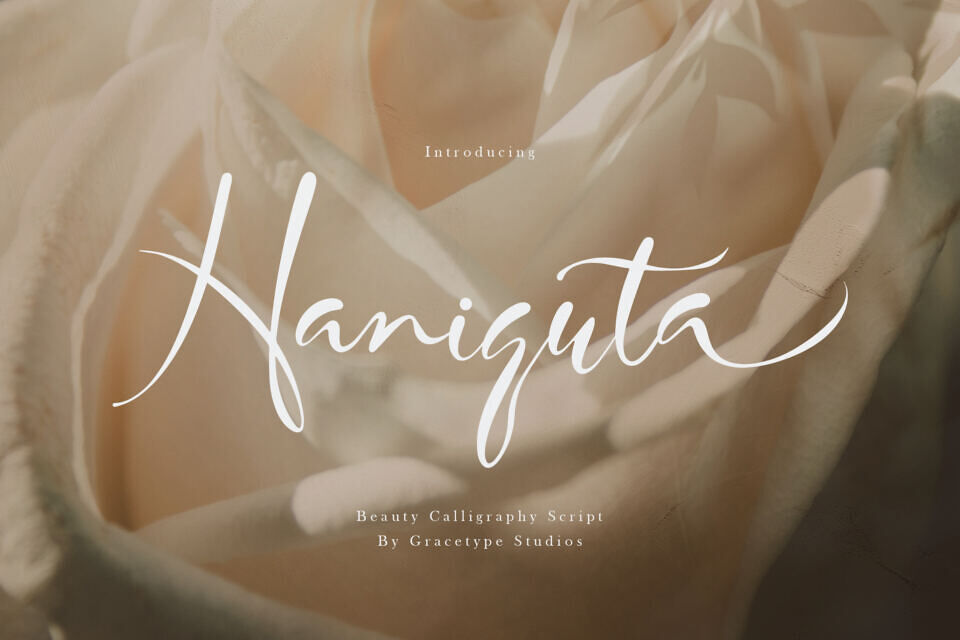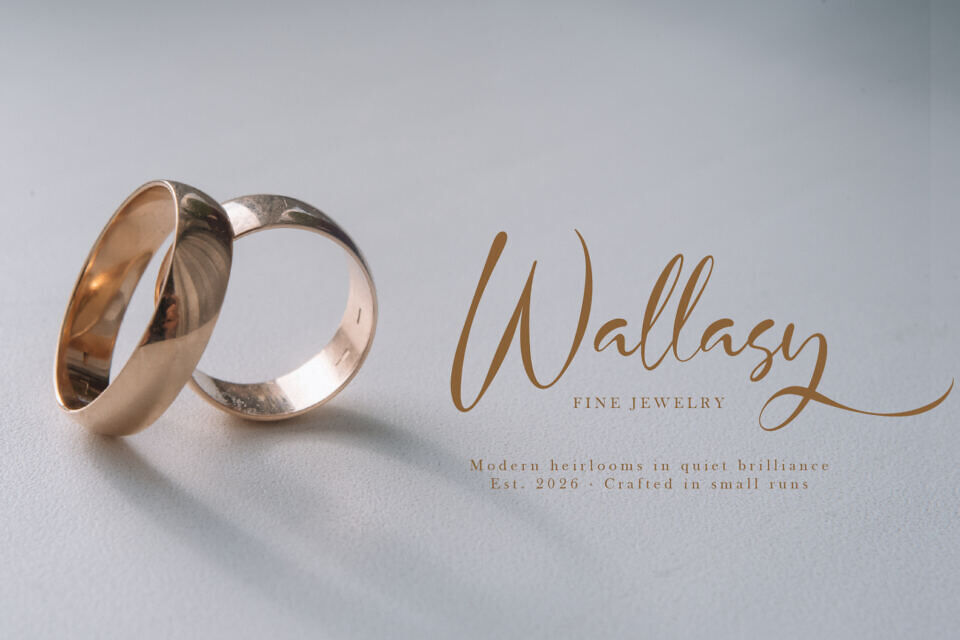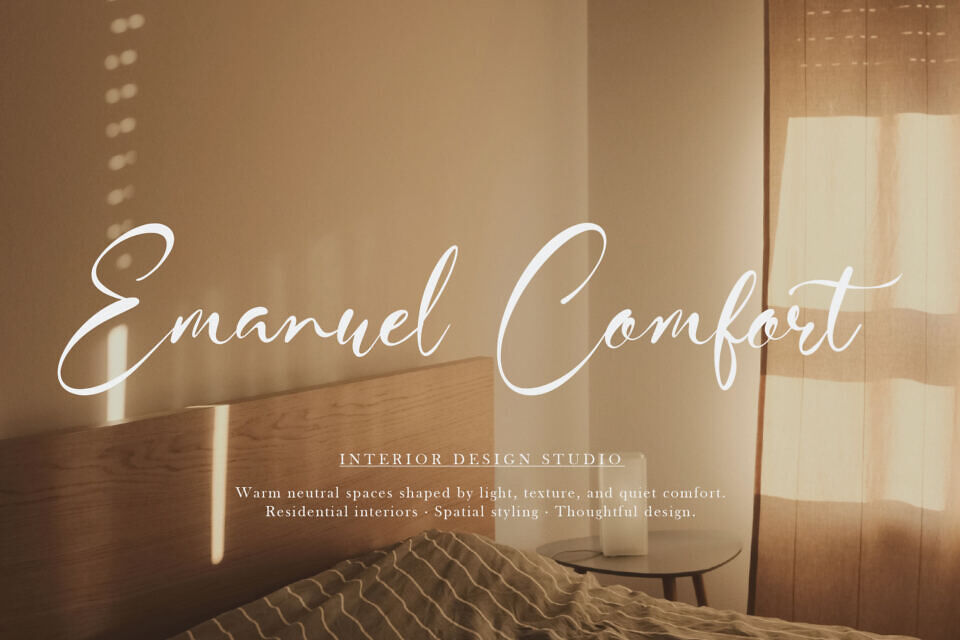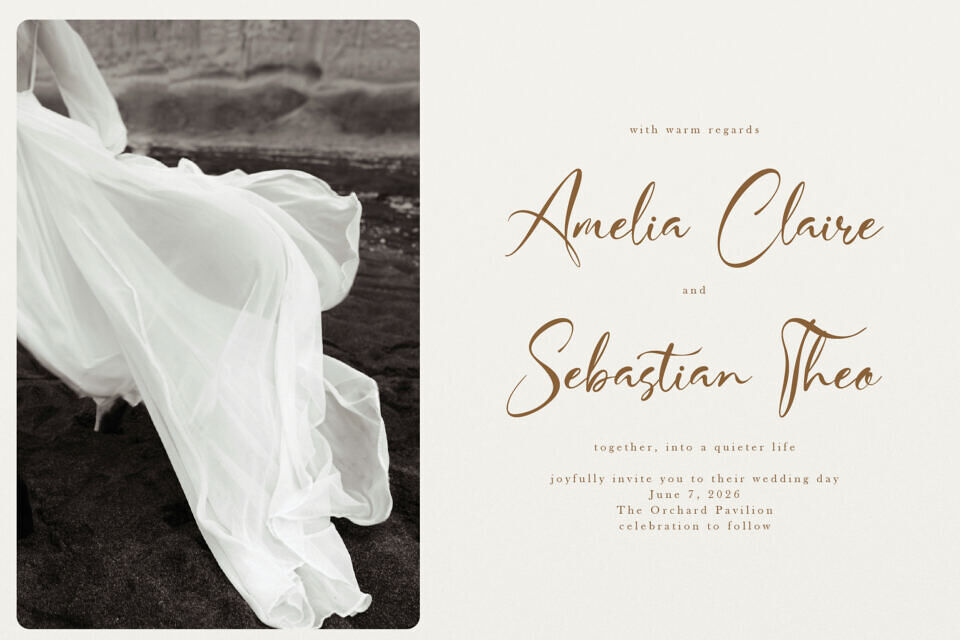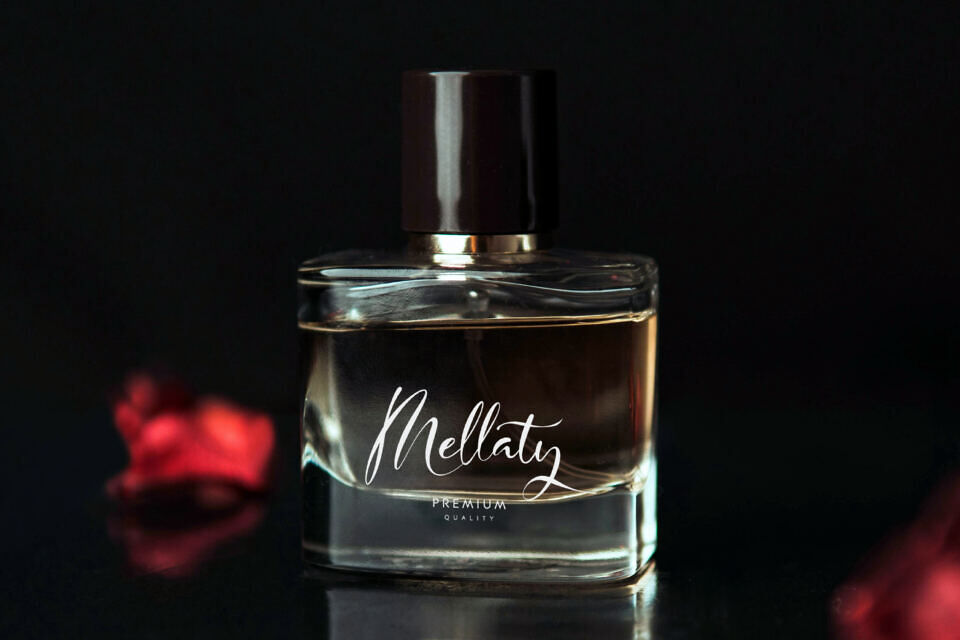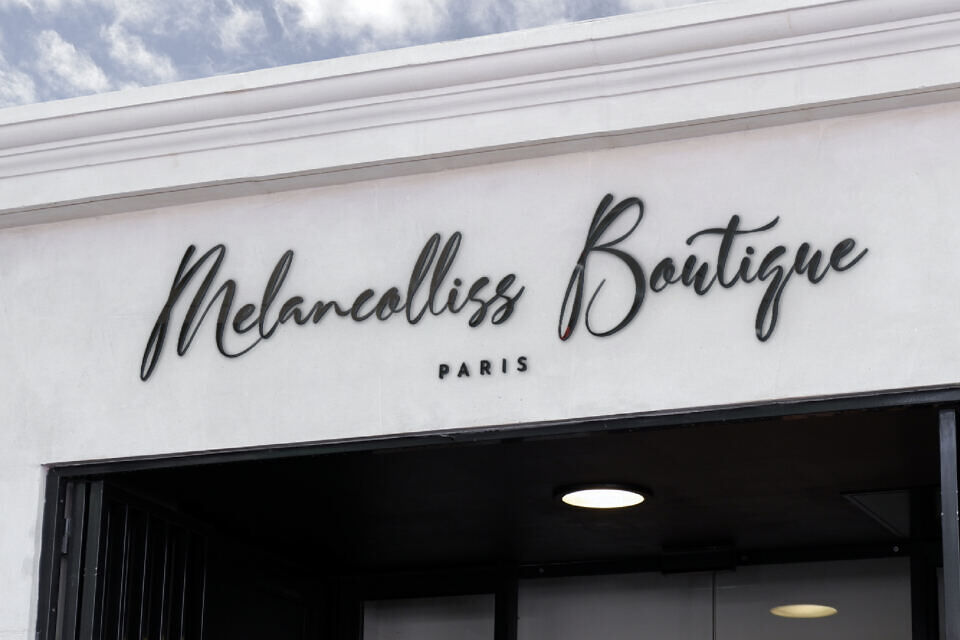
Haniquta Font
The Haniguta font is a breathtaking display of beauty and grace, designed to bring an air of refined elegance to your most cherished projects. This typeface features delicate, dancing strokes and sophisticated flourishes that mimic the fluidity of professional hand-inked calligraphy.
It is the ultimate choice for high-end wedding invitations, luxury cosmetic branding, and romantic editorial layouts where a soft, feminine touch is required. The Haniguta font transforms every word into a work of art, making it perfect for signature logos or ethereal social media graphics.